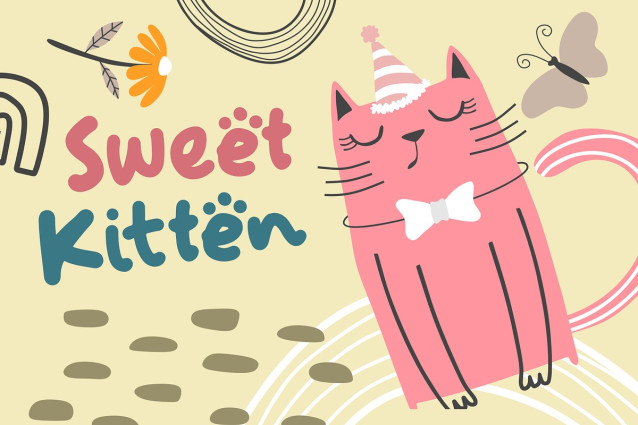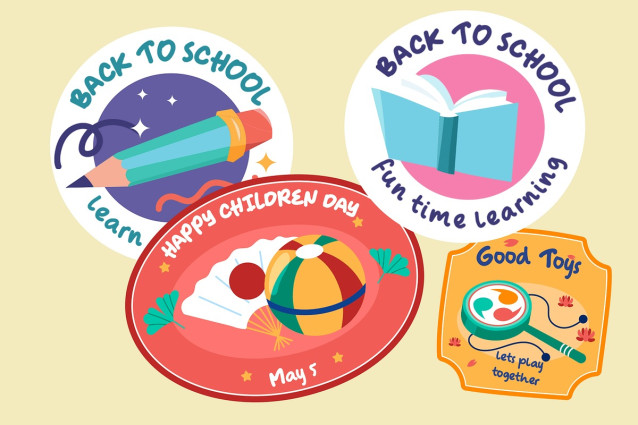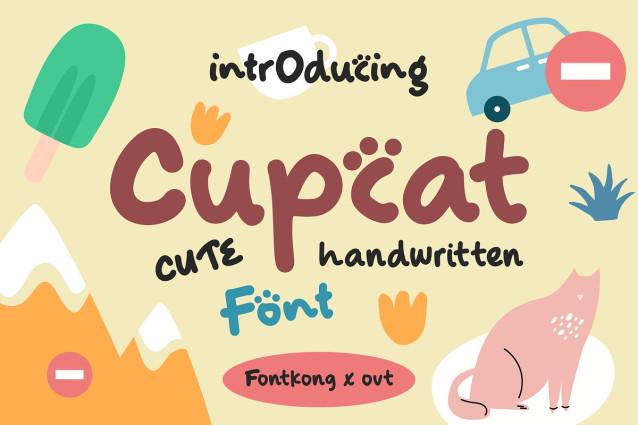
Cupcat Font
Cupcat Font is an adorable and playful handwritten font designed to bring a touch of whimsy and charm to your design projects. With its delightful curves and endearing letterforms, Cupcat is perfect for children’s books, fun posters, cute invitations, and cheerful packaging. This font captures the essence of innocence and creativity, ensuring your work stands out with a sweet and engaging style.
Crafted with care, Cupcat features rounded and friendly characters that offer excellent readability and visual appeal. Its cute design makes it ideal for display purposes, providing a lively and memorable presence. The font’s versatility allows it to adapt seamlessly to various design contexts, from digital screens to printed materials, making it a valuable asset for any designer aiming to create joyful and captivating visuals.
Elevate your design projects with Cupcat, a font that embodies the spirit of fun and imagination. Its unique style and adaptability make it an essential addition to any designer’s toolkit for crafting vibrant and engaging designs. Enhance your work with Cupcat and experience the charm of cute handwritten typography.